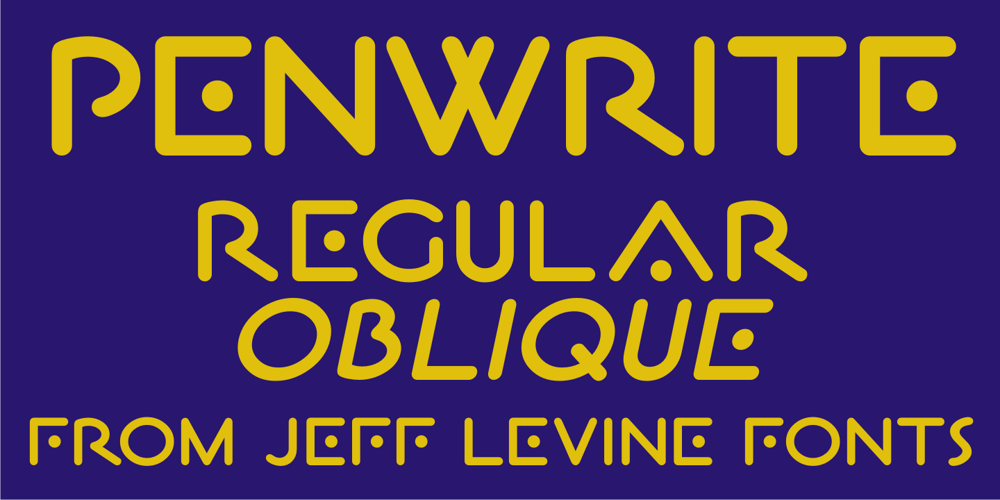
Penwrite JNL Font Family was designed by Jeff Levine and published by Jeff Levine. Penwrite JNL contains 2 styles and family package options. The same 1935 piece of sheet music (“Along Tobacco Road”) that yielded the multi-line lettering design for Deco Triline JNL has also provided lettering examples inspired by the writers’ credits for what is now Penwrite JNL, in both regular and oblique versions.